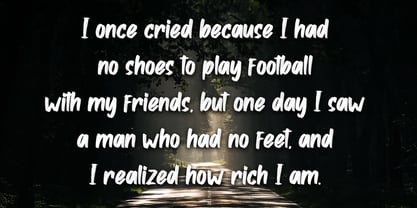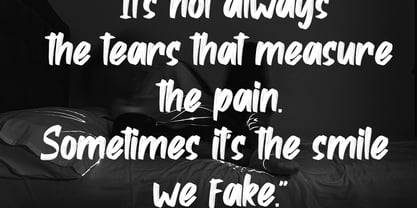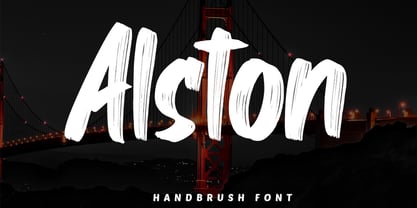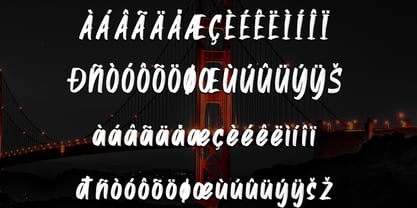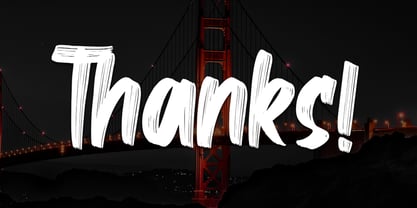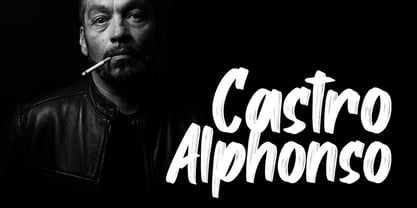
Alston
by Skiiller Studio
The Alston Font Family was designed by Irfan Mahmudin and published by Skiiller Studio. Alston contains 1 styles.
Alston is a bold handbrush font characterized by dynamic strokes that embody the raw energy of authentic brush lettering. Its textured and expressive lines make it an ideal choice for a variety of applications, including posters, branding, sports designs, album covers, and advertisements. This font is perfect for any project that requires a strong and impactful visual presence. With its genuine handmade feel and striking character, Alston infuses movement, attitude, and artistic power into every design, ensuring your message stands out with confidence and flair.